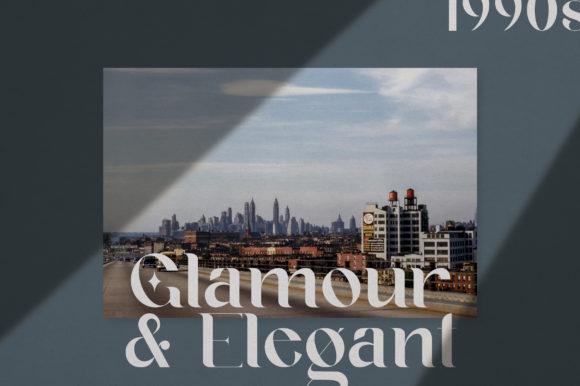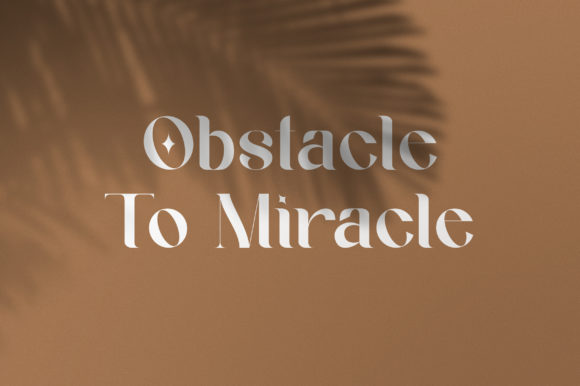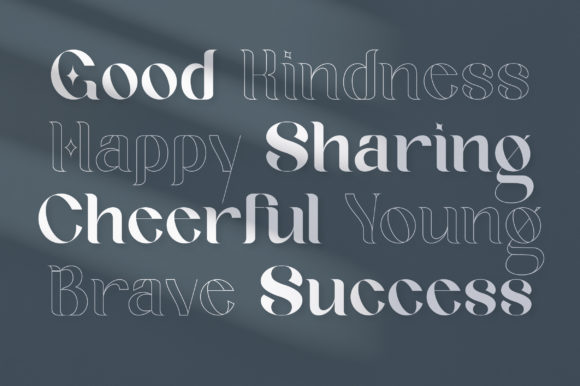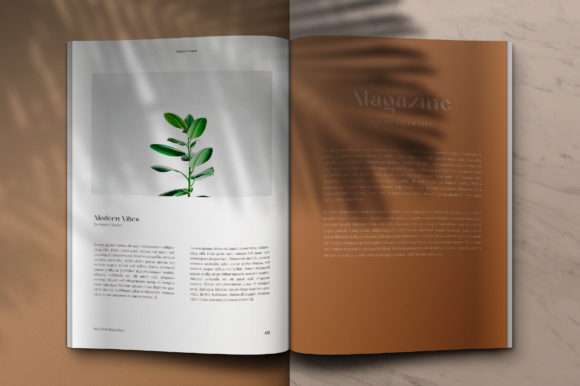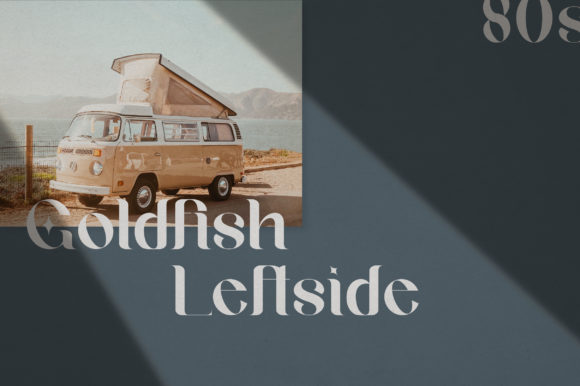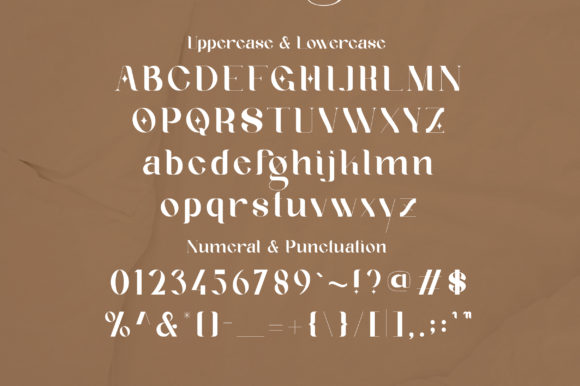
Geyster Font: Elevate Your Designs with a Stylish and Classic Display Font
Are you tired of using the same old fonts in your designs? Look no further than Geyster Font, a stylish and classic display font that’s sure to take your creative projects to the next level. With its perfect blend of trendiness and timelessness, Geyster Font is the perfect addition to any designer’s toolkit.
The Story Behind Geyster Font
Geyster Font is a masterfully designed font that’s been crafted with precision and attention to detail. Its creators have poured their hearts and souls into designing a font that’s not only visually stunning but also highly versatile. Whether you’re a seasoned designer or a crafty DIY enthusiast, Geyster Font is sure to become a true favorite in your collection.
What Makes Geyster Font So Special?
So, what sets Geyster Font apart from other fonts on the market? Here are just a few of its standout features:
- Stylish and Classic Design: Geyster Font boasts a sleek and sophisticated design that’s perfect for creating eye-catching headlines, titles, and other display text.
- Perfect Amount of Trendiness: This font has just the right amount of trendiness to make your designs stand out from the crowd, without being too over-the-top or flashy.
- Highly Versatile: Geyster Font can be used for a wide range of design projects, from branding and advertising to packaging and signage.
- Easy to Read: Despite its stylish design, Geyster Font is still highly legible, making it perfect for use in both print and digital applications.
How to Use Geyster Font in Your Designs
Ready to start using Geyster Font in your designs? Here are a few tips to get you started:
- Pair it with Other Fonts: Geyster Font pairs perfectly with a wide range of other fonts, from clean and simple sans-serifs to elegant and ornate script fonts.
- Use it for Headlines and Titles: Geyster Font is perfect for creating eye-catching headlines and titles that are sure to grab attention.
- Experiment with Different Colors and Textures: Don’t be afraid to get creative with Geyster Font by experimenting with different colors, textures, and effects.
Why Designers and Crafters Love Geyster Font
So, why do designers and crafters love Geyster Font so much? Here are just a few reasons:
- It’s Easy to Use: Geyster Font is incredibly easy to use, even for those who are new to design or crafting.
- It’s Highly Versatile: Whether you’re working on a branding project, a craft project, or something else entirely, Geyster Font is sure to come in handy.
- It’s Visually Stunning: Let’s face it – Geyster Font is just plain beautiful. Its sleek and sophisticated design is sure to elevate any project.